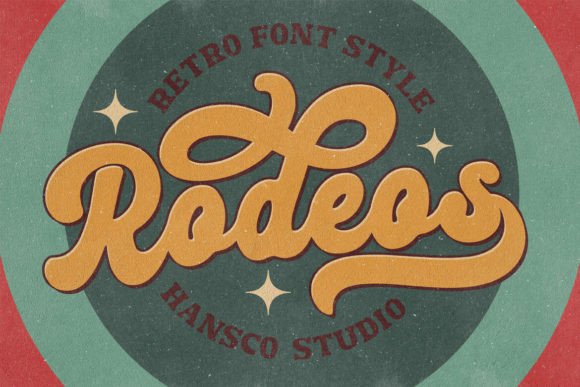
Introducing Rodeos Font, the ultimate script font crafted with love by the talented designer, HansCo. Are you searching for the perfect font to create a breathtaking Cricut banner? Look no further! Rodeos Font is here to elevate your designs and make them truly unforgettable.
With its retro vintage charm, Rodeos Font adds a touch of nostalgia and elegance to any project. This font is not your average script font – it is a lettering masterpiece meticulously designed to captivate and evoke emotions.
What sets Rodeos Font apart from the rest is its collection of alternate characters, including stunning swashes. These unique elements add a personalized and artistic flair to your text, making it stand out from the crowd. Imagine the possibilities as you effortlessly create stunning banners that demand attention and admiration.
Versatility is key when it comes to fonts, and Rodeos Font delivers in abundance. It boasts a complete set of characters, from uppercase and lowercase letters to numbers and punctuation marks. No matter the language or message you want to convey, this font has got you covered. Say goodbye to limitations and embrace the freedom to express yourself creatively.
But Rodeos Font is not just about aesthetics – it's also about functionality. Its multi-lingual support ensures that you can reach a global audience with ease. Break language barriers and connect with people all around the world, regardless of their native tongue.
Imagine the impact your banners will have when they are presented in Rodeos Font. From personal projects to professional endeavors, this font will elevate your designs and leave a lasting impression on anyone who lays eyes on them.